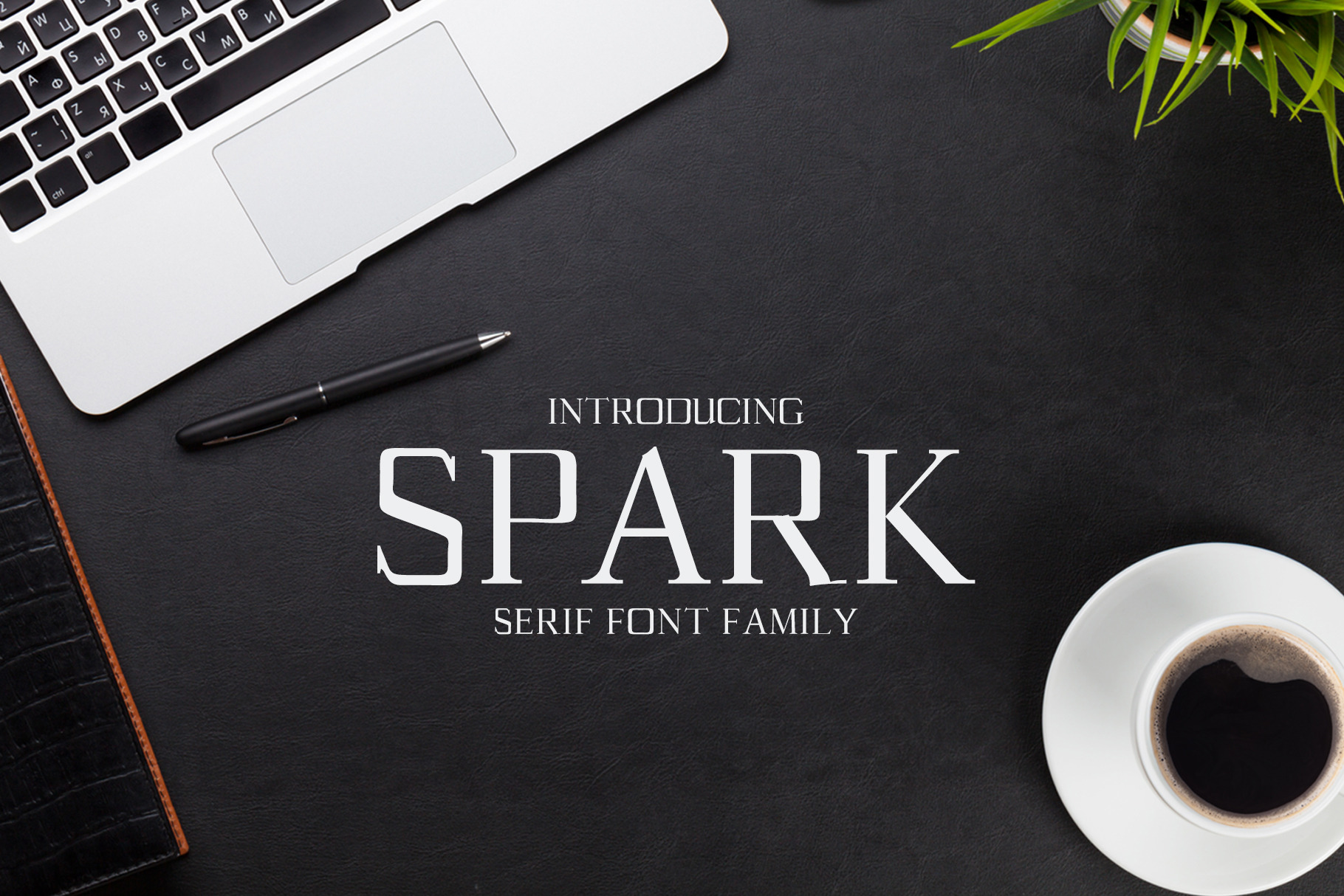
Spark Typeface is minimalist and beautiful serif font family of 3 weights and it features unique and modern serif look and feel. Perfect for gorgeous logos & titles, layouts & content, or large & small scale, It looks gorgeous in all caps with a wide-set spacing if you want to try a classy look, or beautiful on its own in capital and lowercase letters for something completely timeless.